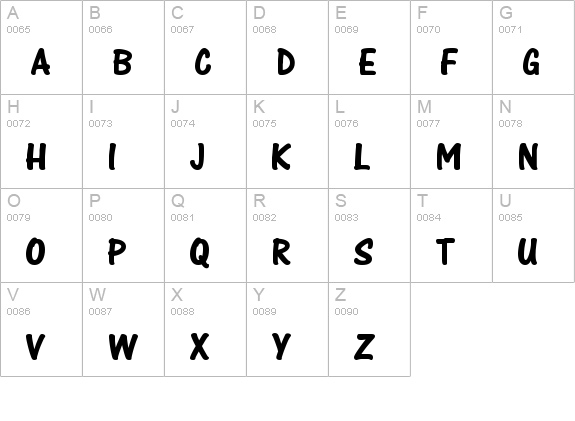
One Stroke Script Com Bold is a strong, high-contrast variant in the One typeface family \xE2\x80\x94 well suited to headlines, attention-grabbing titles, and strong calls-to-action.
One Stroke Script Com Bold font is a bold and sophisticated typeface that exudes elegance and style. Its flowing strokes and graceful curves make it perfect for adding a touch of luxury to any design project. Whether you're creating invitations, logos, or branding materials, this font will make a statement.